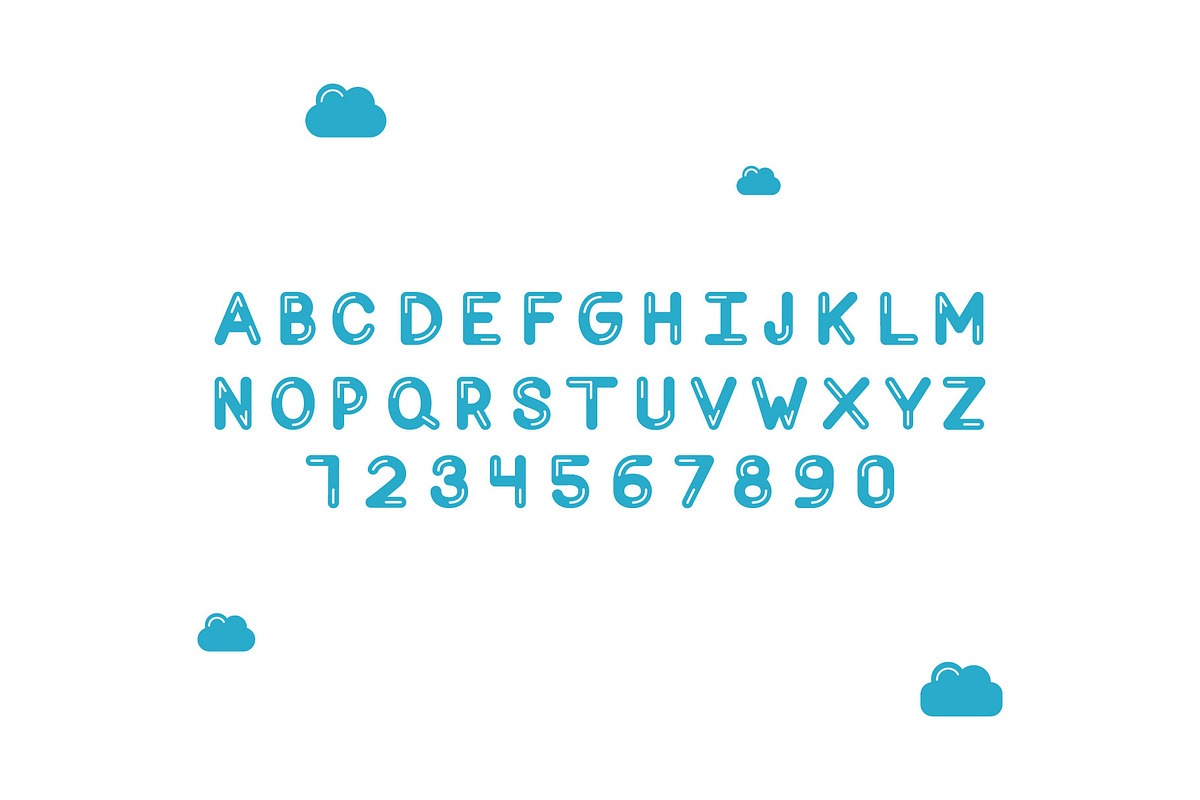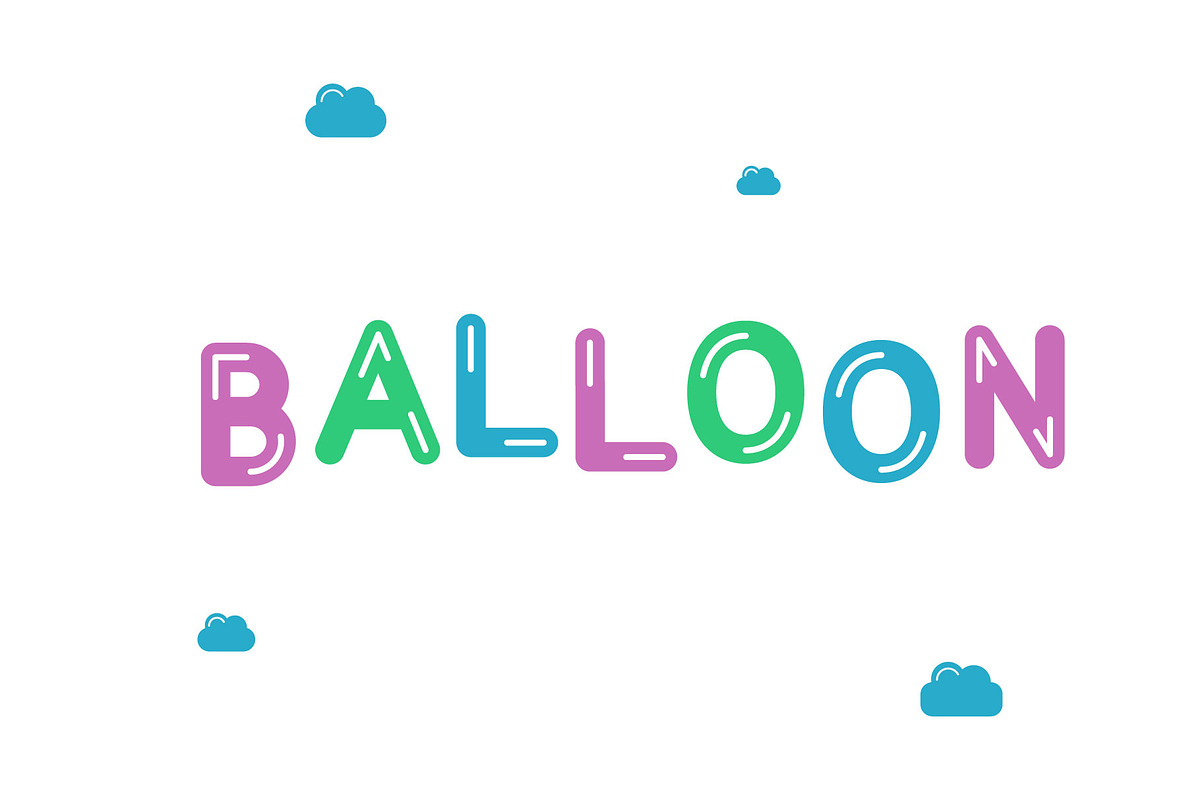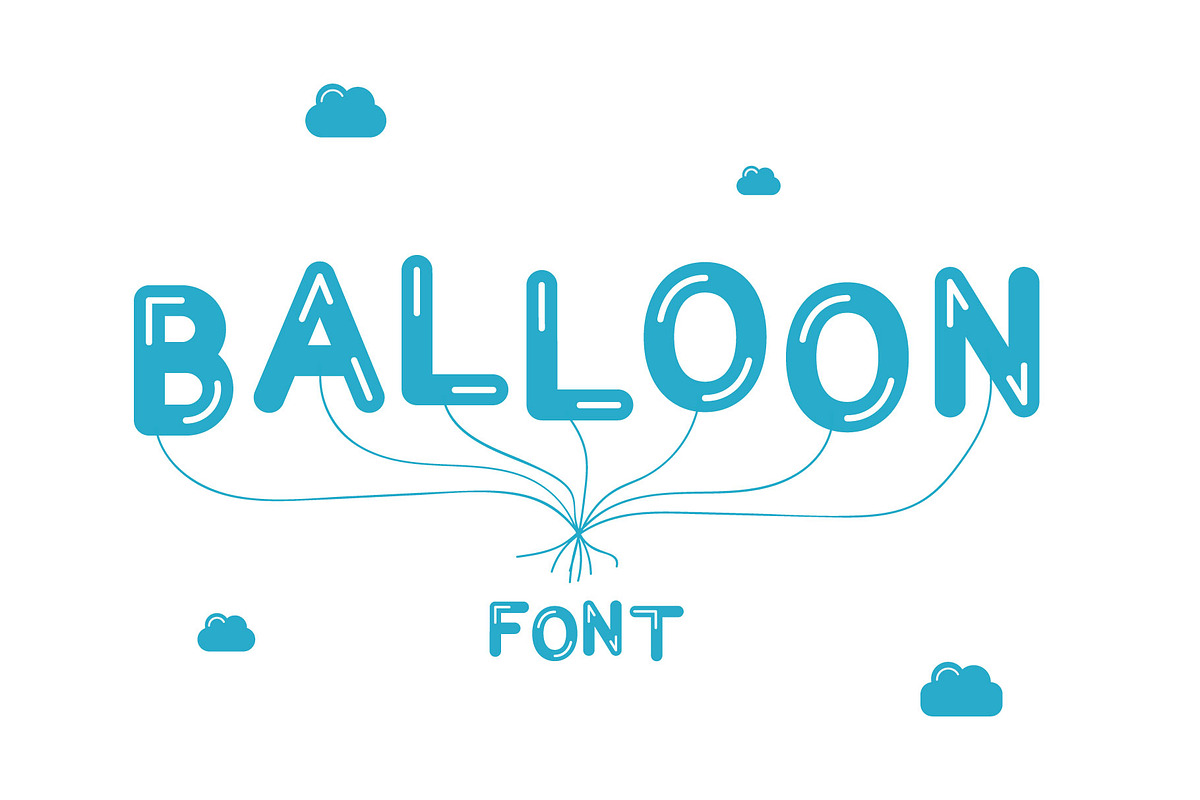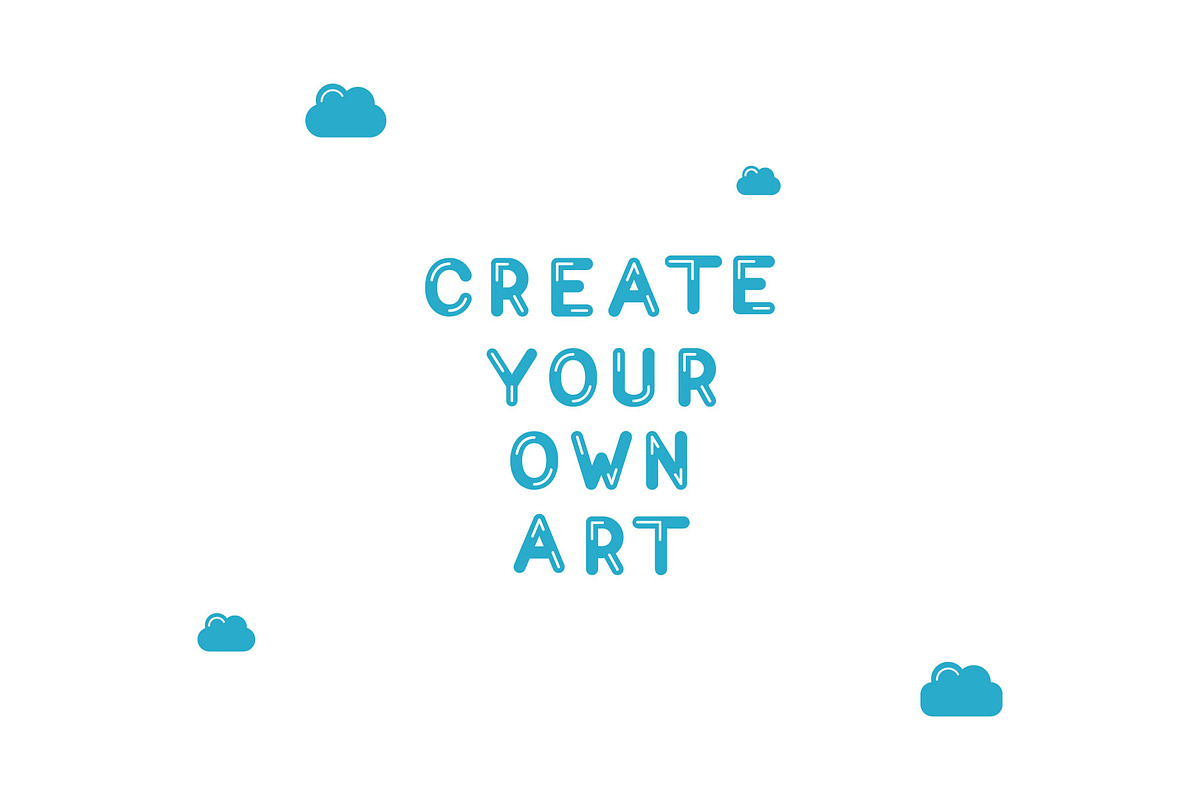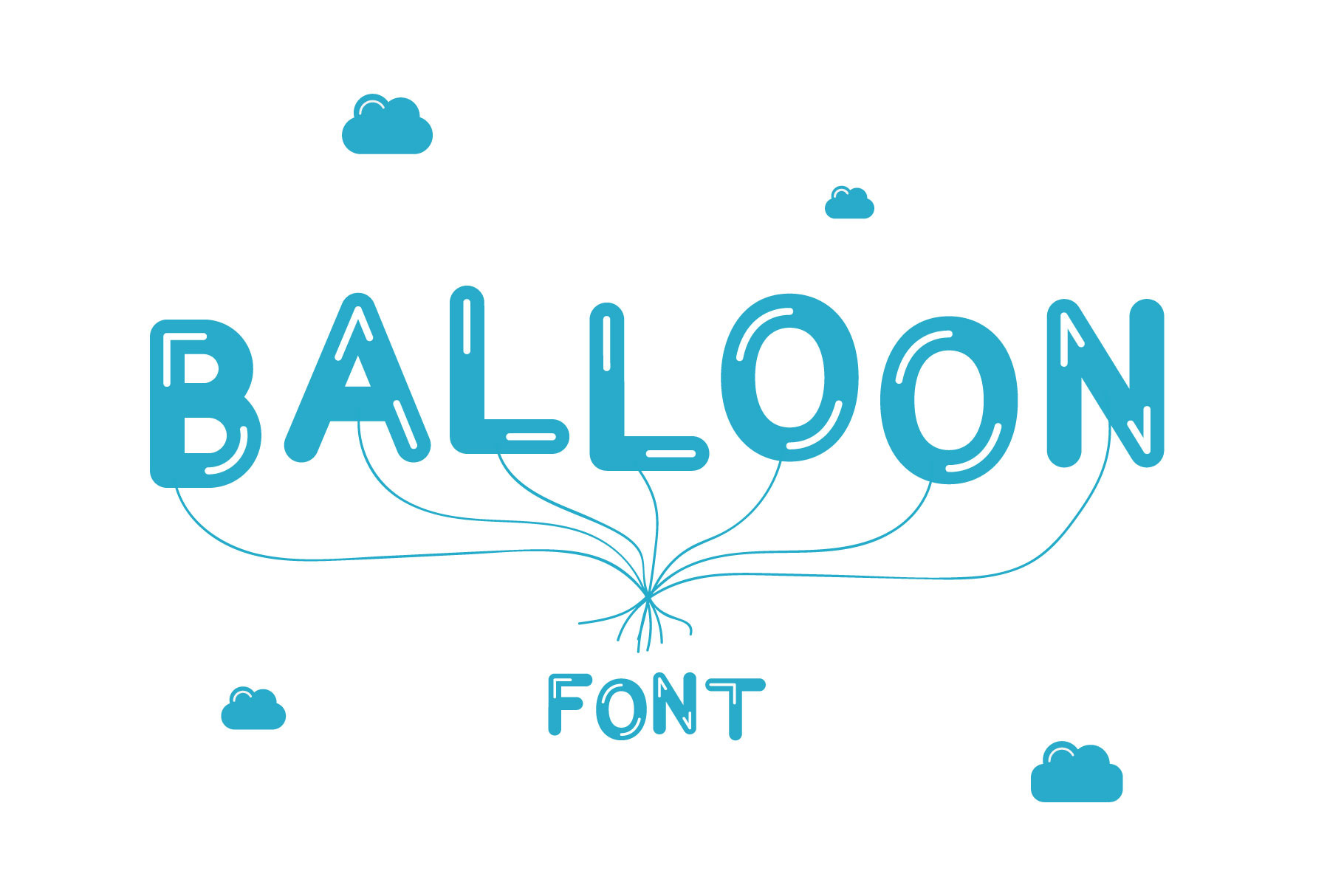
Vector Font. Balloon
Balloon – only vector font with funny, childish and positive style. Perfect for you artwork with ridiculous and playful mood
Balloon Font Variations
- One Color
- Mix Colors
- Uppercase Character
- Latin Letters